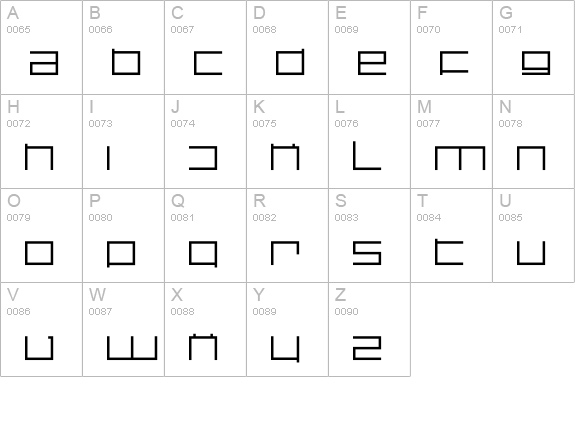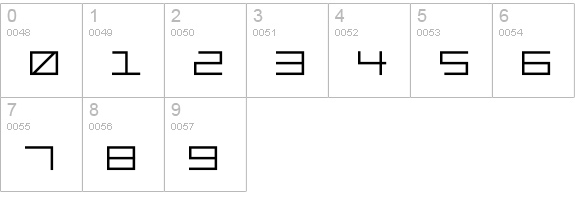
DS SQR45 Font Details
DS SQR45 is a modern and stylish font that combines sleek lines with a sharp and edgy look. Perfect for adding a contemporary touch to any design project, this font exudes a sense of sophistication and professionalism. With its clean and bold appearance, DS SQR45 is versatile and can be used for various purposes such as logos, headlines, branding, and more. The best part about DS SQR45 font is that it is completely free to download at FontsMarket.com. This means that you can easily access this eye-catching font at no cost and use it in your projects without any restrictions. Don't miss out on the opportunity to enhance your designs with the sleek and modern DS SQR45 font, available for free download now!